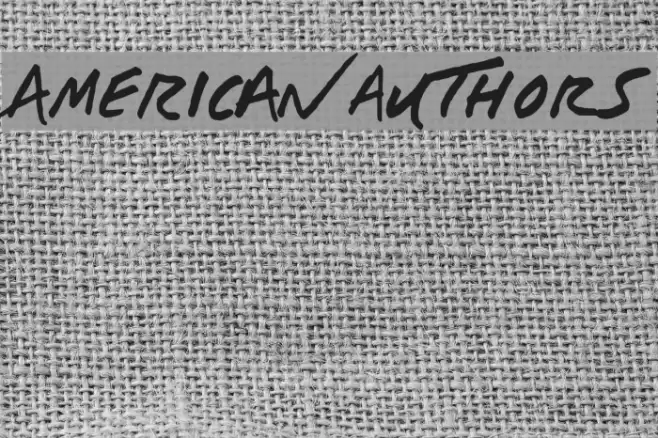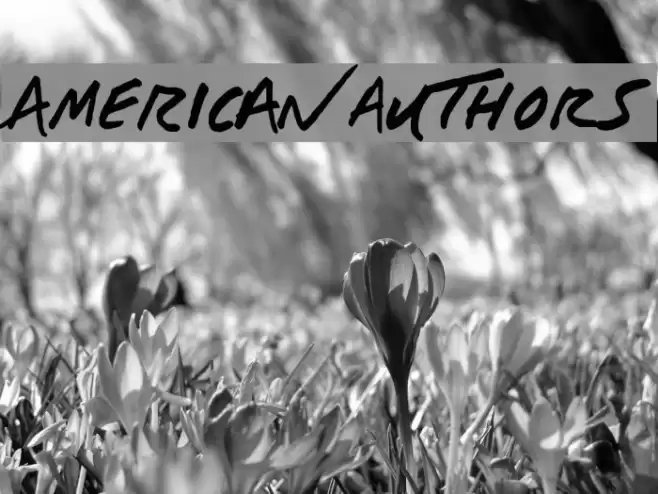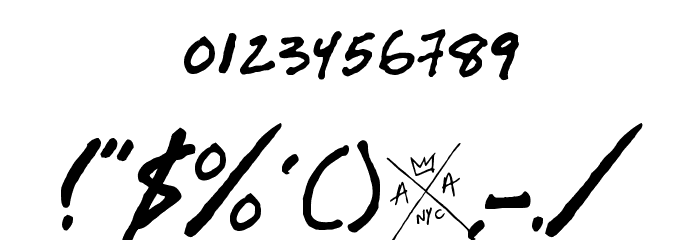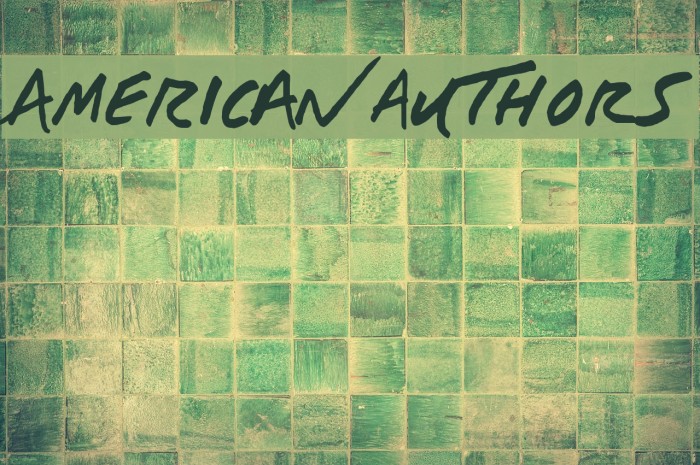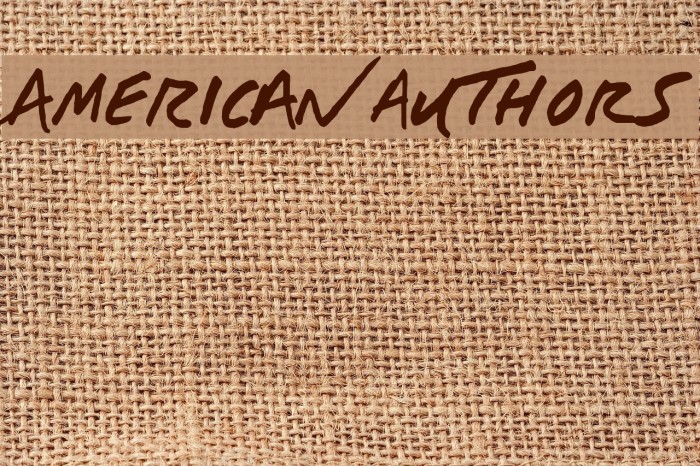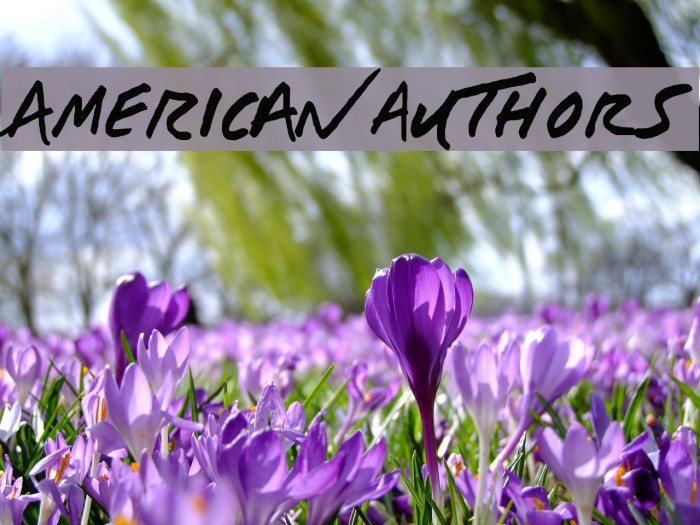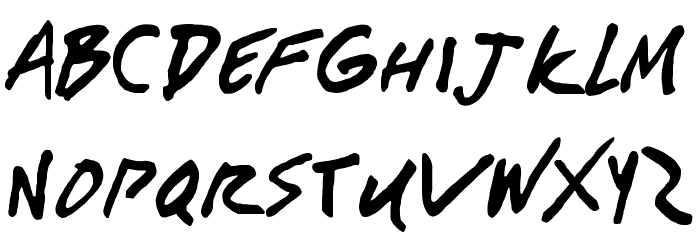
AMERIC_N auTHOrS Font
AMERIC_N auTHOrS Description
This font exudes a dynamic and energetic vibe with its bold, brush-like strokes. The uppercase letters are slightly slanted, giving a sense of movement and fluidity, while the lowercase letters maintain a consistent style that complements the uppercase. The numbers are clear and bold, matching the overall aesthetic. Special characters are creatively designed, adding to the font's artistic flair. The font's hand-drawn appearance makes it ideal for projects that require a personal touch or an informal, creative look.
A bold, brush-style font with dynamic, hand-drawn strokes from Script fonts.
- Proposed Projects: Ideal for artistic projects, branding, posters, and creative designs that require a personal touch.